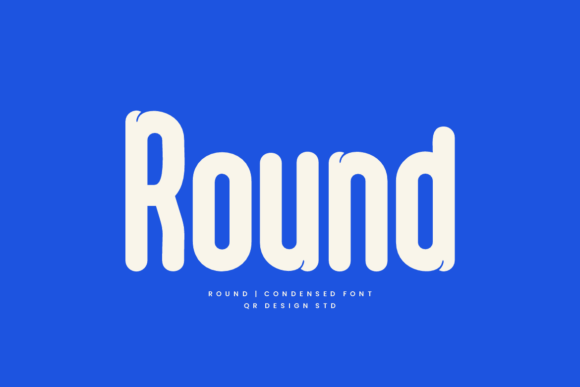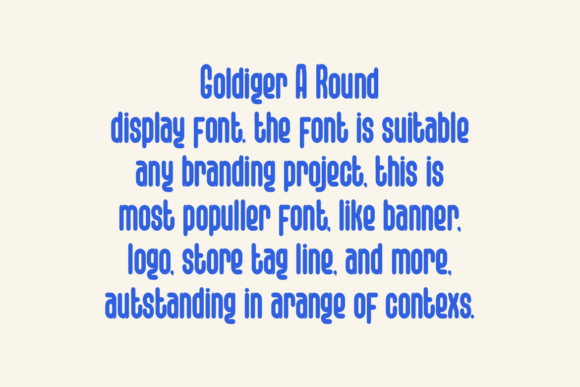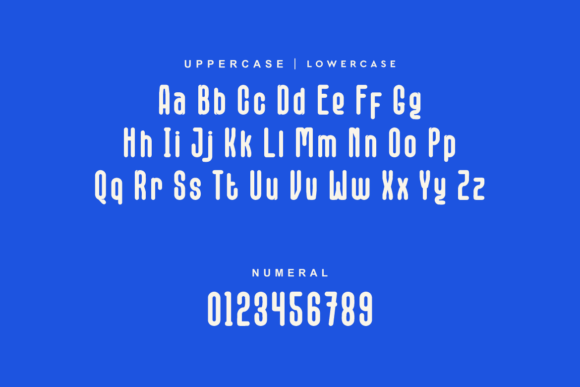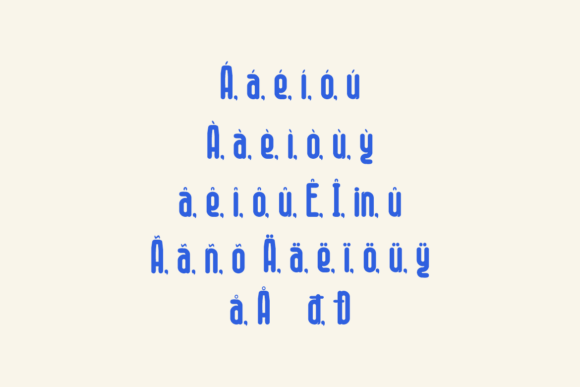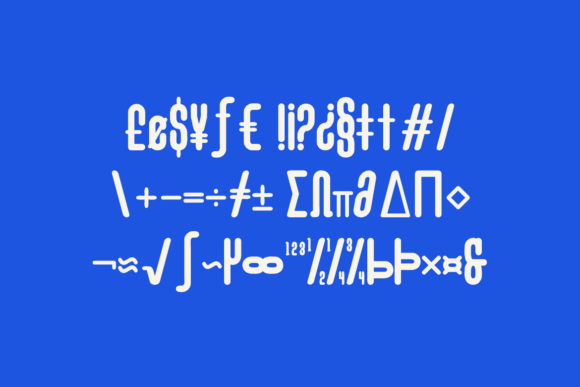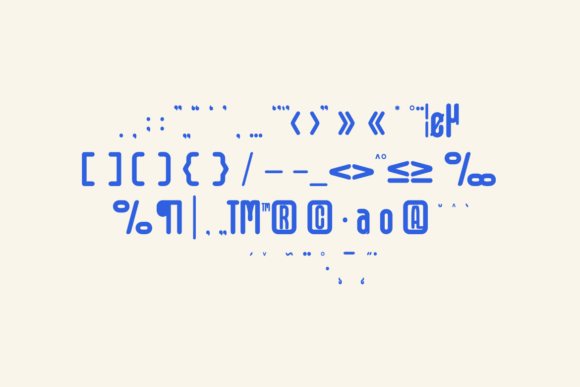
Introducing Goldiger Font: The Epitome of Modern Sophistication
In the realm of typography, fonts play a pivotal role in shaping the visual identity of a brand, product, or digital platform. Among the myriad of fonts available, Goldiger stands out as a beacon of modern sophistication and sleek style. This cool sans-serif font has been meticulously crafted to exude a sense of professionalism and contemporary flair, making it an ideal choice for designers and crafters seeking to elevate their creations.
The Design Philosophy of Goldiger
Goldiger’s design is rooted in the principles of clean lines, balanced geometry, and subtle curves. This harmonious blend of elements results in a font that is not only aesthetically pleasing but also highly legible. The clean lines and balanced geometry contribute to its modern and professional essence, while the subtle curves add a touch of warmth and approachability. This thoughtful design approach makes Goldiger a versatile font suitable for a wide range of applications.
Applications of Goldiger Font
Goldiger’s versatility is one of its most compelling attributes. Its modern and sleek aesthetic makes it an excellent choice for various design projects, including:
- Branding: Goldiger can be used to create a strong and contemporary visual identity for brands. Its unique style helps in differentiating a brand from its competitors and makes it more memorable.
- Headlines: The font’s bold and confident appearance makes it perfect for headlines, adding a touch of sophistication and elegance to any layout.
- Packaging: Goldiger’s crisp details and modern look make it an excellent choice for product packaging, helping brands to stand out on store shelves.
- Digital Interfaces: For digital platforms, Goldiger offers a fresh and confident aesthetic that enhances user experience. Its legibility on various screen sizes makes it suitable for websites, mobile apps, and digital marketing materials.
The Benefits of Using Goldiger
Choosing Goldiger for a design project comes with several benefits:
- Clarity and Visual Impact: Goldiger delivers both clarity and visual impact, making it an effective tool for communicating messages in a clear yet stylish manner.
- Versatility: Its versatile structure allows it to be used in a variety of contexts, from digital media to print materials.
- Modern Aesthetic: The font’s modern aesthetic ensures that designs look contemporary and relevant, which is crucial in today’s fast-paced digital landscape.
- Legibility: Goldiger’s design prioritizes legibility, ensuring that messages are conveyed effectively across different mediums.
Tips for Using Goldiger Effectively
To maximize the potential of Goldiger, consider the following tips:
- Pair with Complementary Fonts: When combining Goldiger with other fonts, choose those that complement its modern and sleek style. Serif fonts or script fonts can create a balanced and visually appealing contrast.
- Adjust Weight and Size: Experiment with different weights and sizes of Goldiger to create visual hierarchy and emphasis in your designs.
- Consider Color and Contrast: Ensure that the color scheme and contrast used with Goldiger enhance its appearance and legibility.
Goldiger font represents a perfect blend of modern sophistication and sleek style, making it an invaluable asset for designers and crafters. Its clean lines, balanced geometry, and subtle curves contribute to its contemporary and professional essence. With its versatility, clarity, and visual impact, Goldiger is poised to elevate branding, headlines, packaging, and digital interfaces. By incorporating Goldiger into their projects, designers can add a fresh and confident touch, ensuring their creations stand out in a crowded design landscape.
Whether you’re a seasoned designer or a crafter looking to enhance your visual creations, Goldiger is a font that promises to deliver both aesthetic appeal and functional effectiveness. Its ability to convey modernity and professionalism makes it a valuable tool in the world of design.